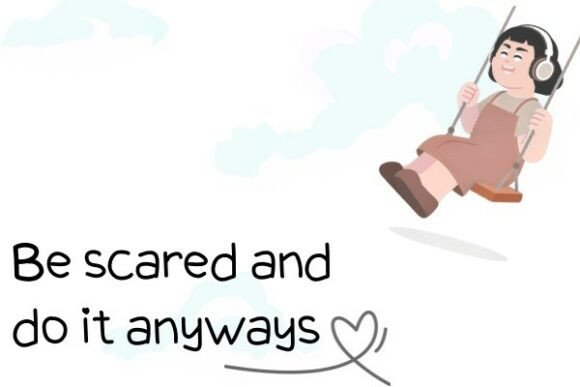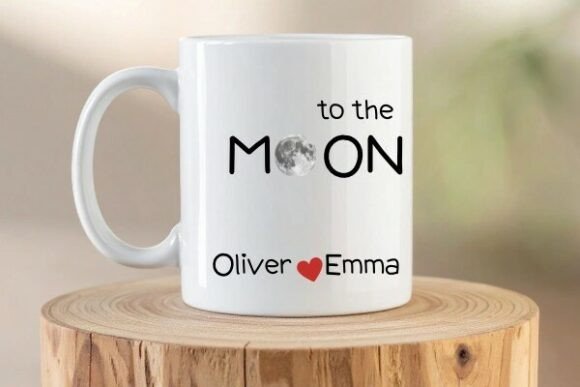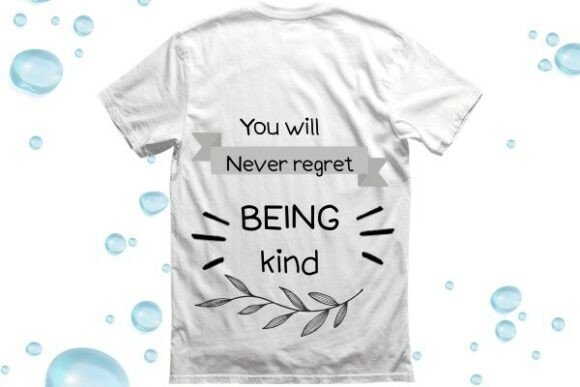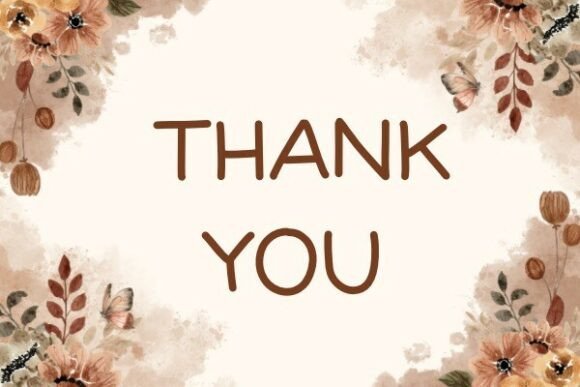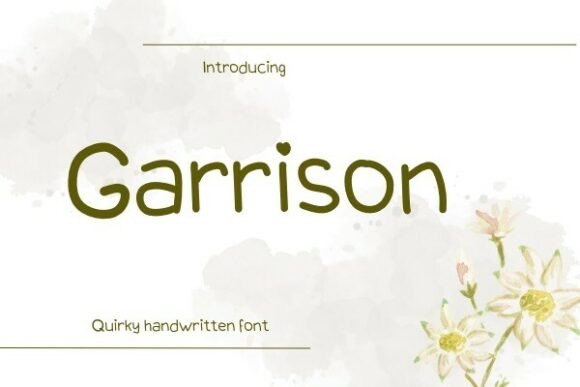
Unveiling Garrison: The Elegantly Simple Font for Every Design Need
In the vast universe of typography, where fonts are the silent communicators of design, Garrison emerges as a beacon of elegance and simplicity. This delightful typeface is not just a font; it’s a versatile tool designed to breathe life into your creative projects. Whether you’re a designer looking to elevate your professional work or a crafter aiming to add a personal touch to your handmade goods, Garrison is the perfect companion for your creative journey.
The Essence of Garrison Font
Garrison is characterized by its clean lines, simple shapes, and an air of sophistication that makes it stand out in the world of typography. Its elegance lies in its minimalism, making it an exceptionally user-friendly font. This ease of use is a significant advantage for designers and crafters alike, as it allows for seamless integration into a wide array of design projects without the complexity often associated with more ornate fonts.
One of the key features that set Garrison apart is its incredible versatility. This font is not limited to a specific style or medium; it can effortlessly adapt to various design needs. Here are a few ways you can utilize Garrison to bring your ideas to life:
- Embroidery and Apparel: When it comes to embroidering a t-shirt, hoodie, or any piece of clothing, the choice of font can make all the difference. Garrison’s clear and elegant appearance ensures that your message or design stands out beautifully on fabric.
- Stationery and Greeting Cards: For those who love crafting heartfelt greeting cards or designing personalized stationery, Garrison adds a touch of elegance and warmth. Its simple yet sophisticated look makes any card or letter feel special.
- Invitations and Events: Designing an invitation for a special event? Garrison can help set the tone with its clean and classy appearance, making your invites look both modern and timeless.
- Ceramics and Home Decor: Personalizing a coffee mug, plate, or any home decor item with a message or a quote can be made stylish and effortless with Garrison. Its adaptability ensures that your design looks great on various materials and textures.
- Mock-ups and Digital Designs: For digital artists and designers working on mock-ups, Garrison can add a realistic and appealing touch to your work. Its simplicity ensures that it complements rather than overwhelms your design.
Why Choose Garrison?
Choosing a font for your design project can be overwhelming, given the numerous options available. However, Garrison stands out for several reasons:
- User-Friendly: Its simplicity makes it incredibly easy to use, even for those who are new to design.
- Elegant and Versatile: It brings an air of elegance to any project, making it suitable for a wide range of applications.
- Timeless Appeal: Unlike trends that come and go, Garrison’s classic look ensures that your designs remain relevant and stylish over time.
Tips for Using Garrison Effectively
To make the most out of Garrison, consider the following tips:
- Play with Sizes: Don’t be afraid to experiment with different sizes. Garrison’s clarity and simplicity make it look great in both large and small sizes.
- Combine with Images: Pair Garrison with illustrations or photographs for a balanced design. Its simplicity can help draw attention to the imagery.
- Experiment with Colors: While Garrison looks great in black and white, feel free to experiment with colors that match your project’s theme.
| Author | Uloel Design |
Garrison is more than just a font; it’s a design companion that brings simplicity, elegance, and versatility to your projects. Whether you’re a professional designer or a hobbyist crafter, Garrison can help elevate your work with its timeless appeal and user-friendly nature. So, the next time you’re looking for a font that can seamlessly blend into and enhance your design, consider Garrison – the elegantly simple font that opens up a world of creative possibilities.